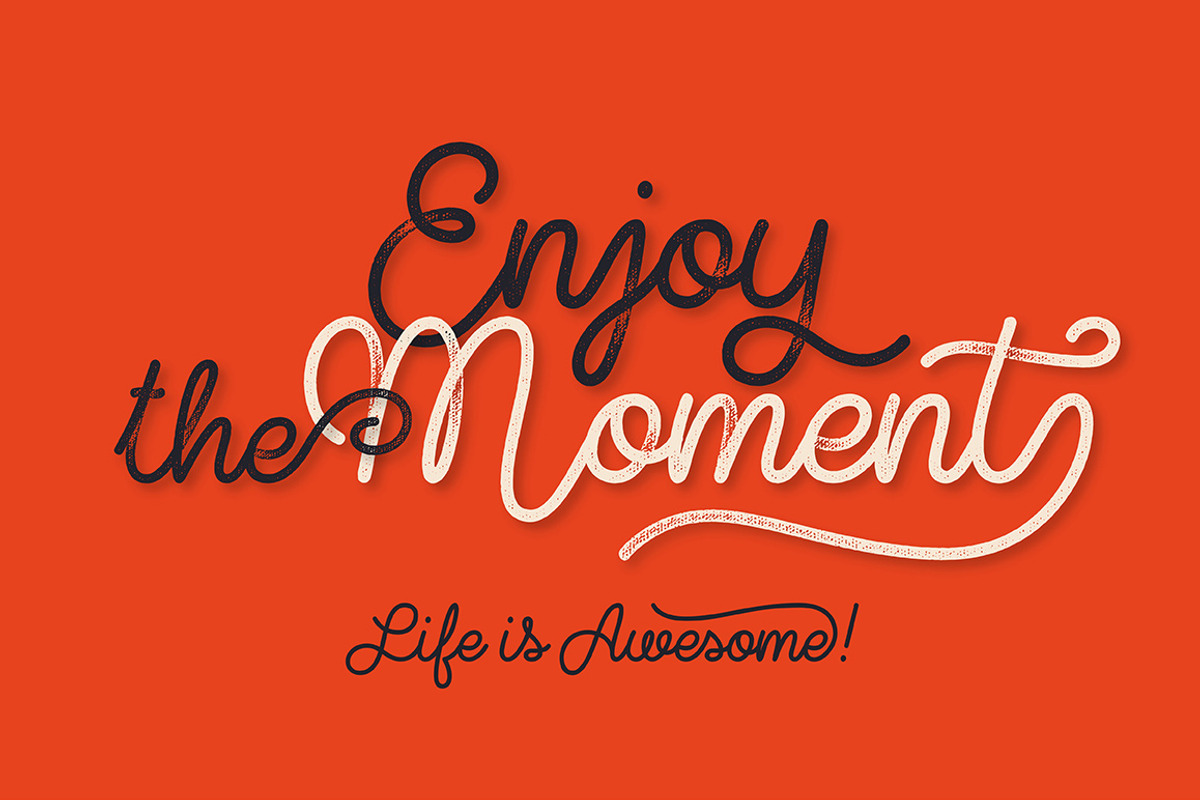
Shoelaces font
Shoelaces font by Gleb Guralnyk is a font selected for branding, posters, packaging, typography.
- It also includes a clean version without texture.
- OpenType features (ligatures and alternates) helps to make your lettering more interesting.
Why Shoelaces font is worth a look
Shoelaces font by Gleb Guralnyk fits naturally into Branding, posters, packaging, typography.